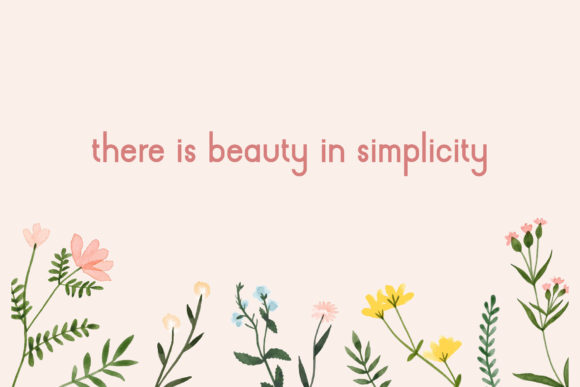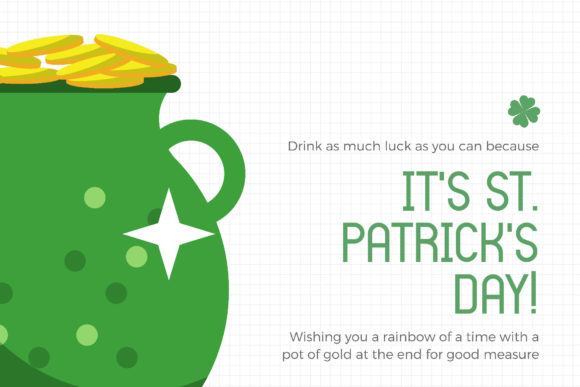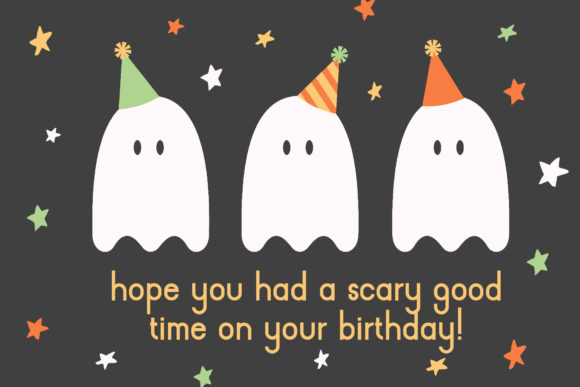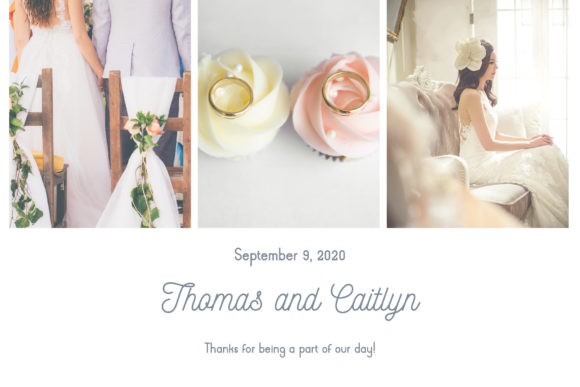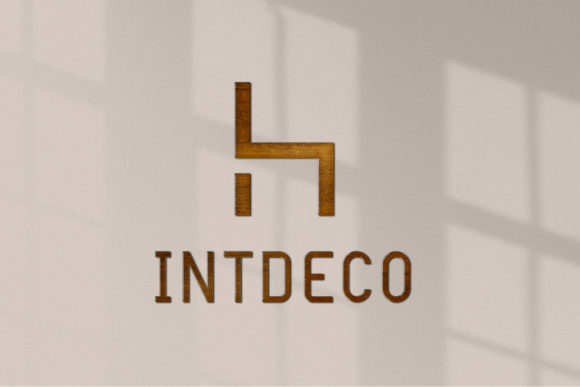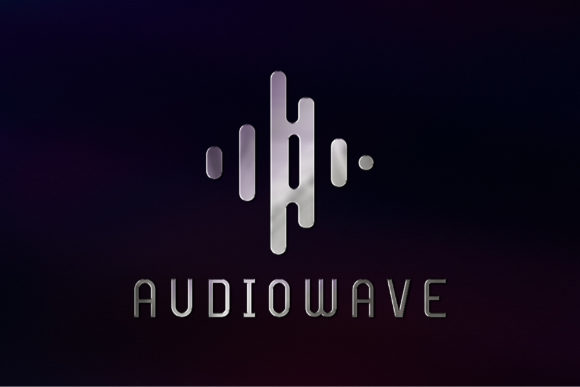
When a Font Speaks to Your Design
Have you ever stared at a blank canvas, waiting for inspiration to strike? For designers, those moments are a mix of excitement and pressure. You’re not just creating something new – you’re trying to capture the essence of your brand or idea. That’s where the right font can make all the difference. For those moments when you need a font that’s both modern and timeless, you might want to consider Good Time Font.
Good Time Font is designed to elevate your designs, from logos to headlines, and from websites to posters. Its simplicity and style make it an ideal choice for any creative project. Whether you’re working with a brand or creating your own, Good Time Font is a valuable asset for designers who want to make a lasting impression. With its versatility and unique charm, this font is sure to be a good time for your designs.
Good Time Font Key Features
- Font Family: Good Time Font is a sans-serif font family designed for digital use.
- Unique Characteristics: Features a unique blend of modern and vintage elements, with a focus on legibility and readability.
- Kerning and Ligatures: Includes advanced kerning and ligature pairs to ensure smooth text rendering and optimal typography.
Designer Review: Good Time Font
I recently had the chance to work with the Good Time Font, and I must say it’s an interesting piece of work. Here are my thoughts on what works well and what doesn’t.
The Good Time Font has a unique, laid-back vibe that’s perfect for creating a relaxed atmosphere. It’s ideal for use in branding and advertising materials where you want to convey a sense of fun and approachability.
The font is highly legible, even at smaller font sizes, which makes it a great choice for body text or signage.
The Good Time Font may not be the best choice for formal or professional applications, as it can come across as a bit too casual.
The font’s versatility is somewhat limited, as it’s not suitable for use in complex or technical contexts, such as academic or financial writing.
The Good Time Font is a solid choice for designers looking to add a touch of whimsy to their projects. While it may not be the best fit for every application, it’s definitely worth considering for projects that require a relaxed, approachable tone.
Use Good Time Font to add a touch of elegance and sophistication to your designs. Try pairing it with bold fonts for maximum impact.
Experiment with different font sizes and colors to create visual interest and emphasis.
Use Good Time Font for:
Brand logos and typography
Business cards and letterheads
Magazine and book titles
Alternatives to Good Time Font
Lato is a modern sans-serif font designed by Łukasz Dziedzic. It’s perfect for use in digital design, such as websites and mobile apps, due to its clean and minimalist design. Lato is a great alternative to Good Time Font when you need a font that’s both readable and stylish.
Compared to Good Time Font, Lato has a more geometric and modern feel, making it suitable for a wider range of design projects.
Montserrat is a sans-serif font designed by Julieta Ulanovsky. It’s a great choice for designs that require a strong, urban feel. Montserrat is perfect for use in headings and titles due to its bold and geometric design. When compared to Good Time Font, Montserrat has a more edgy and industrial feel, making it suitable for designs that require a strong statement.
Montserrat is a great alternative to Good Time Font when you need a font that’s both bold and stylish.